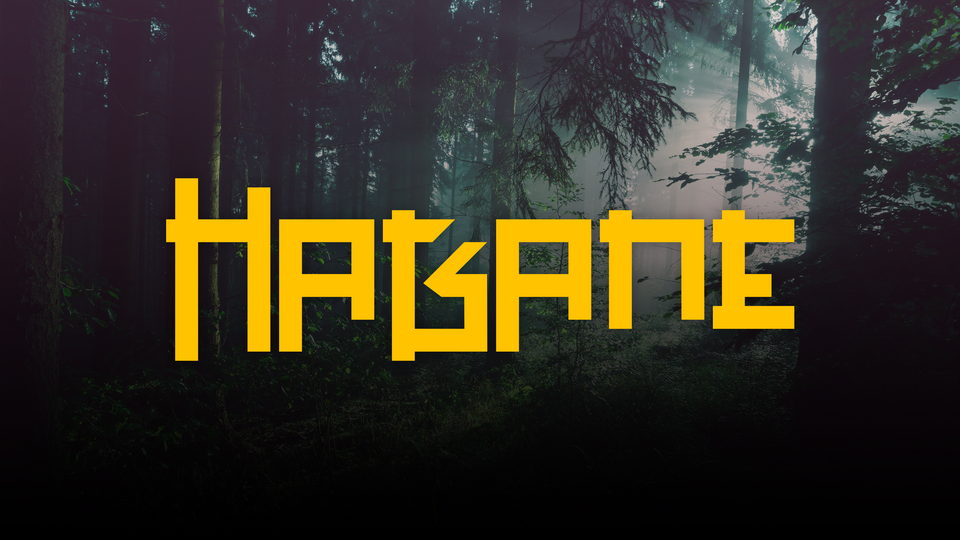
Feb 7, 2025DisplayHagane Font Hagane is a square and grid-based with an industrial and futuristic appearance. The font is great for display, logos, branding, packaging, advertising, posters and more. Font DetailsDesigned by: Burak MescioğluWebsiteLicense: Free for commercial use Download Hagane FontFile size: 3.32 KBCreated: February 16, 2025Updated: February 16, 2025 Download Explore similar fonts Square Baby Font Gelfitt Font Pesani Ganaro Font Sorean Font Snack Block Font Netech Font # Block# Bold# Creative# Square More fonts by Burak MescioğluSun Seed TypefaceManapaka FontDale Typeface